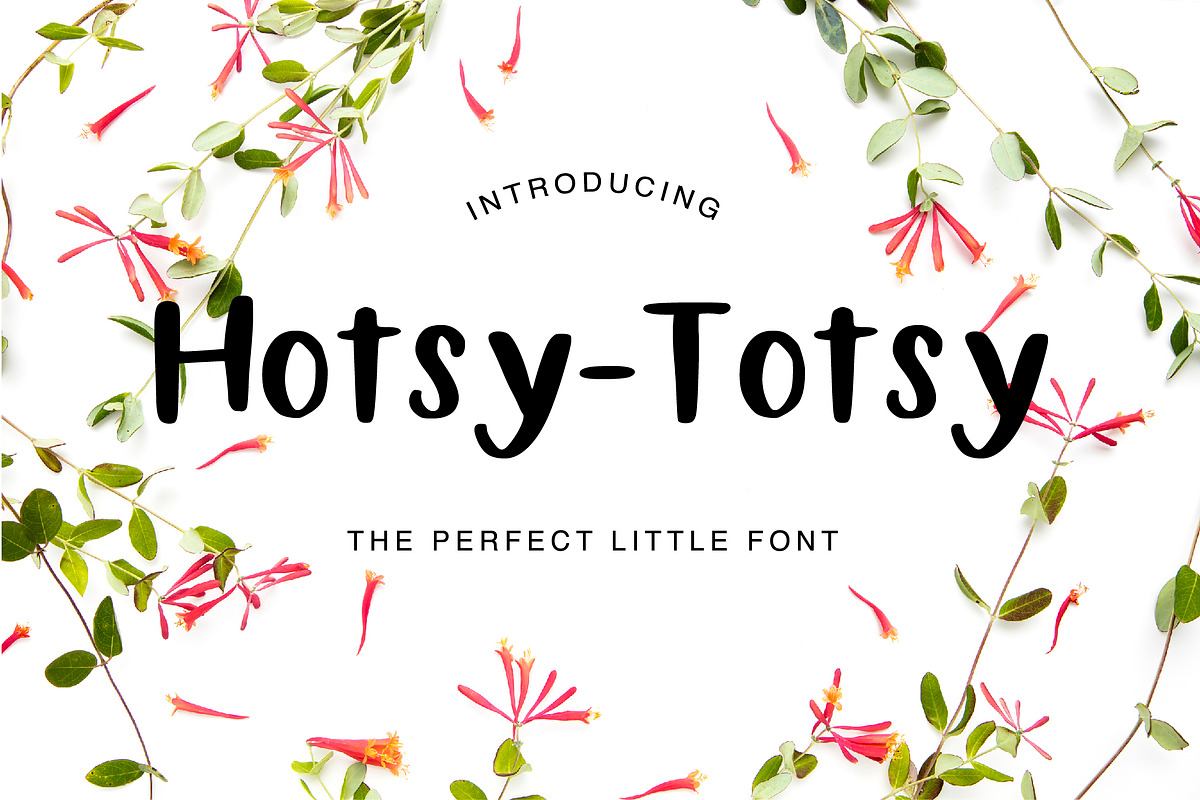
The Hotsy Totsy Font Free Download is a playful and retro-inspired typeface with a unique flair, perfect for creating eye-catching logos, posters, social media graphics, and vintage branding materials. With its bold, rounded shapes and fun design, this font adds a touch of personality and charm to any creative project. Please note, for commercial use, a license must be purchased. You can download it for free for testing purposes.
With its lively and dynamic design, the Hotsy Totsy Font Free Download is ideal for projects that need a cheerful, vintage-inspired vibe. Whether you're designing for retro events, music promotions, or any fun creative work, this font will give your designs a distinctive and energetic look.